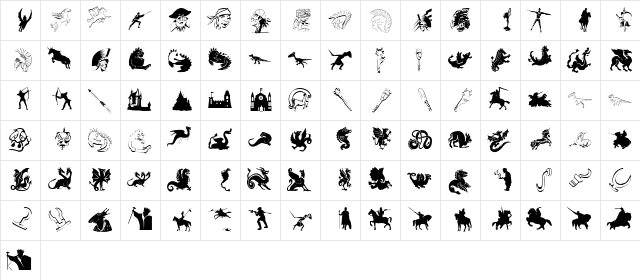
MediaevalBats Regular
Design Context for MediaevalBats Typeface
MediaevalBats is a composed and adaptable typeface that performs quietly and consistently across a wide range of design contexts.